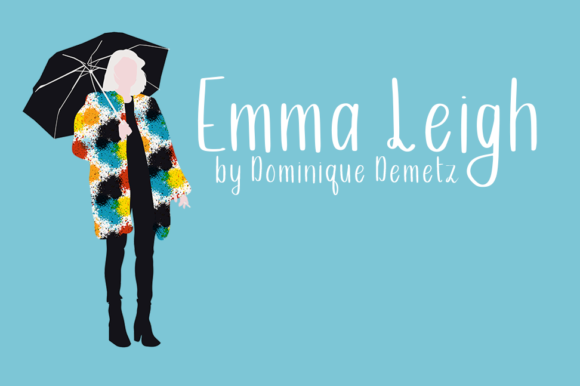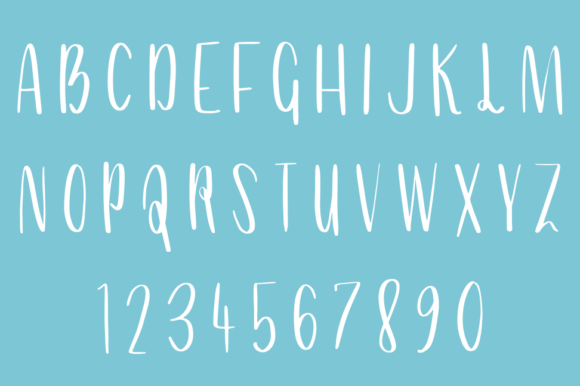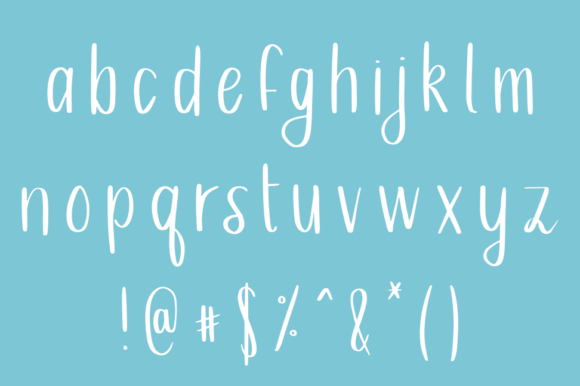
Emma Leigh Font
About Emma Leigh Font
The Emma Leigh is a casual handwritten font. It has a great readability and will give a modern touch to every design.